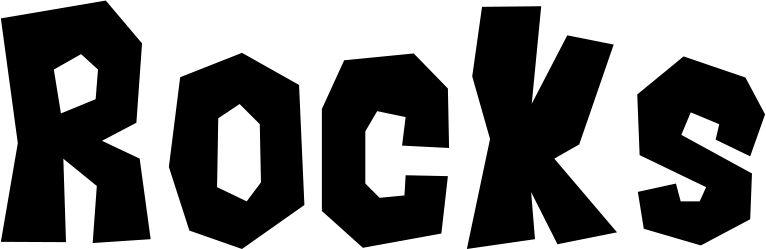
Rocks Font
Some projects demand a specific mood that you can’t fail to take into account. For instance, projects like cartoons, comic books, and children’s textbooks require a cool and childish vibe you can use Rocks, a bold and crooked cartoon font. This distorted font would be a great alternative because you get both uppercase and lowercase of the alphabet, the numbers, and the punctuation marks.